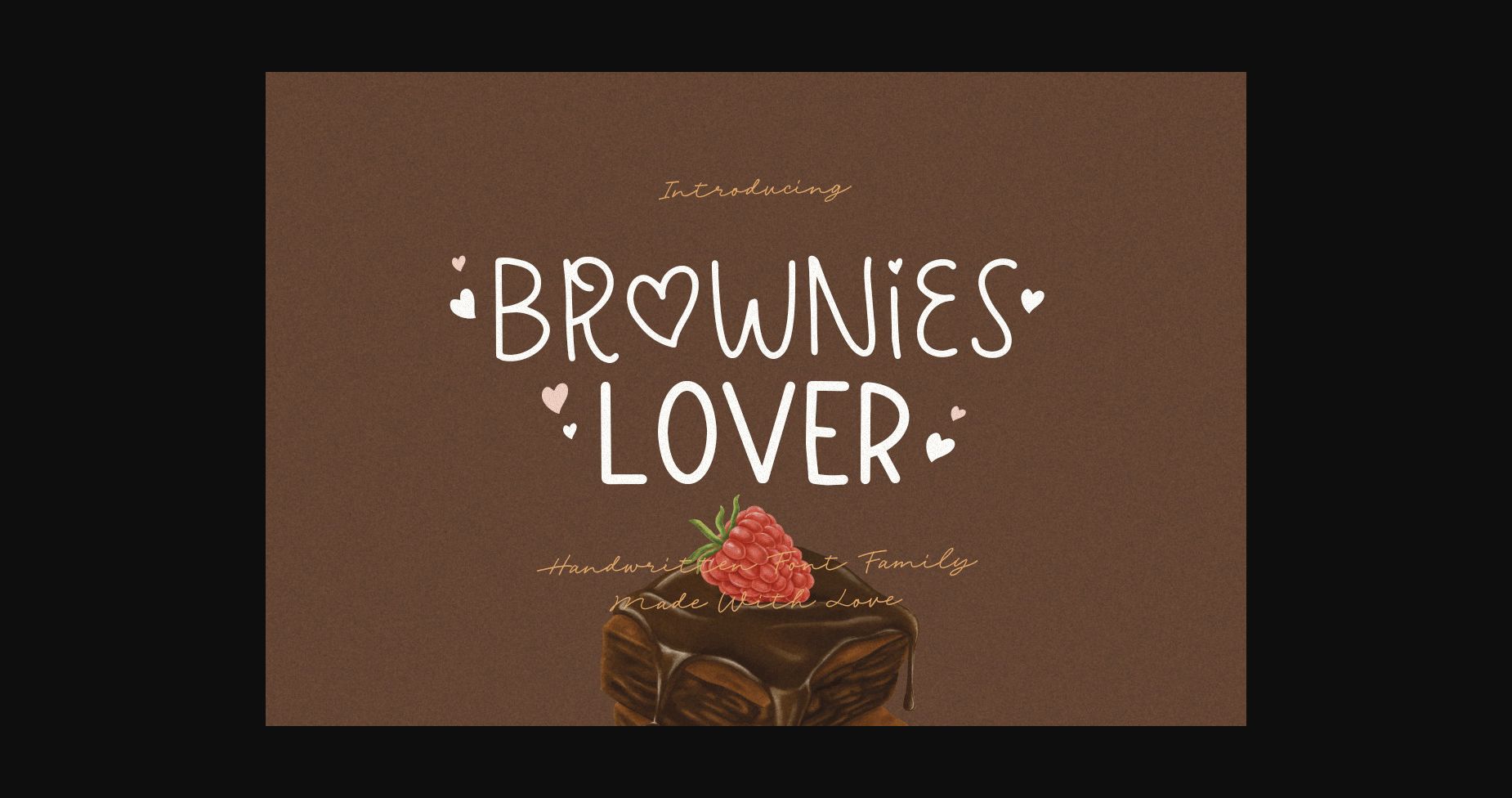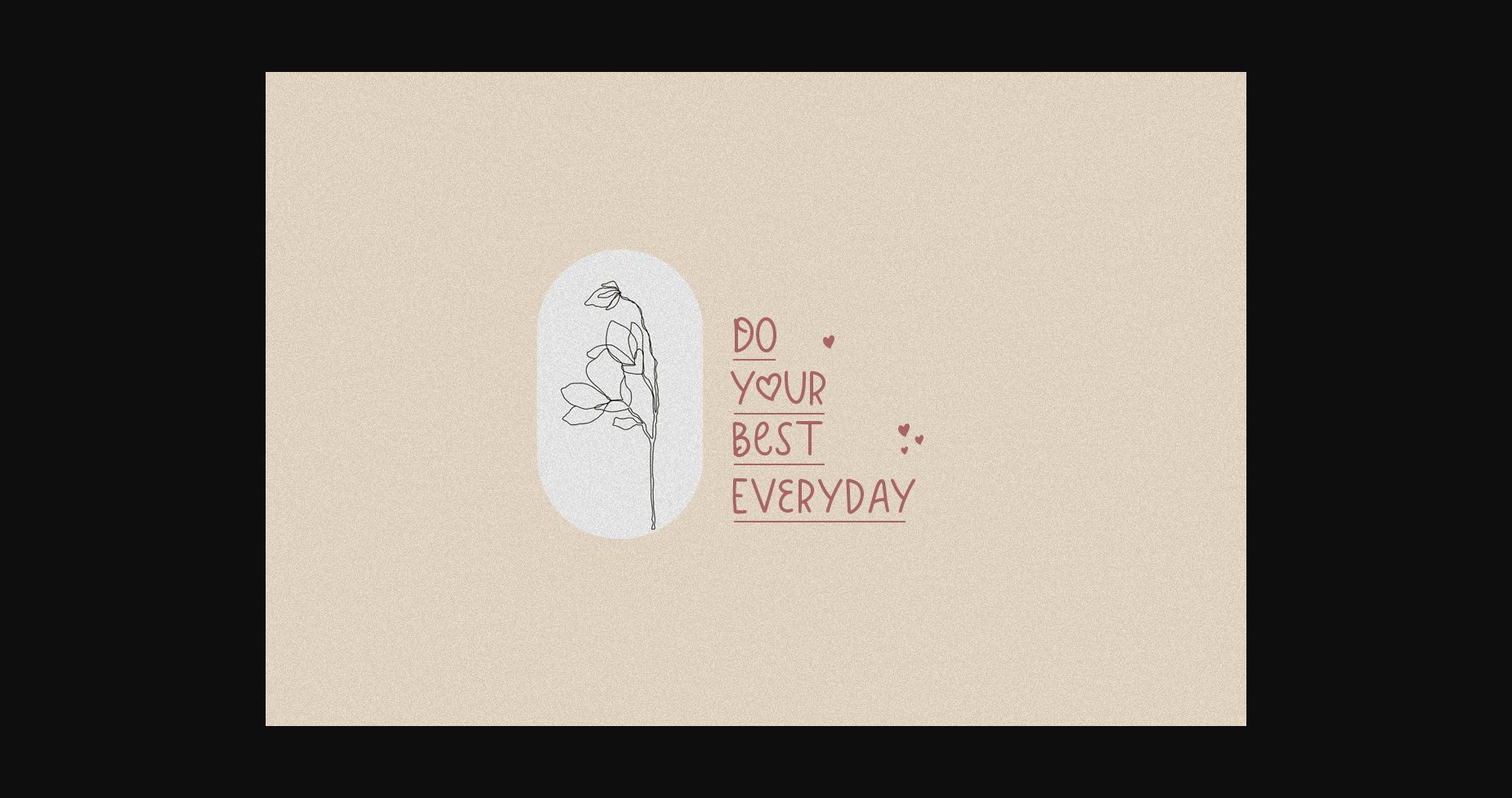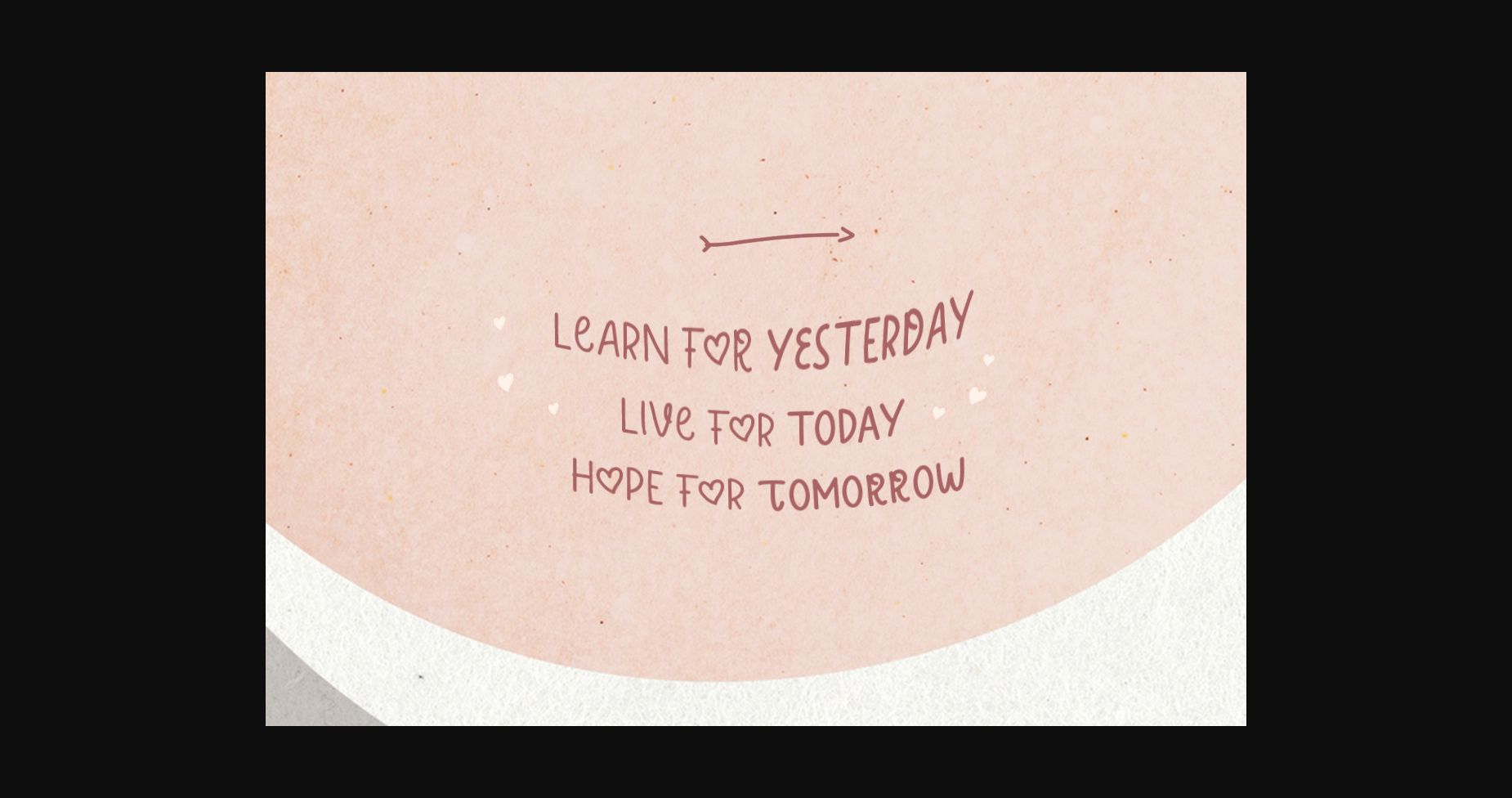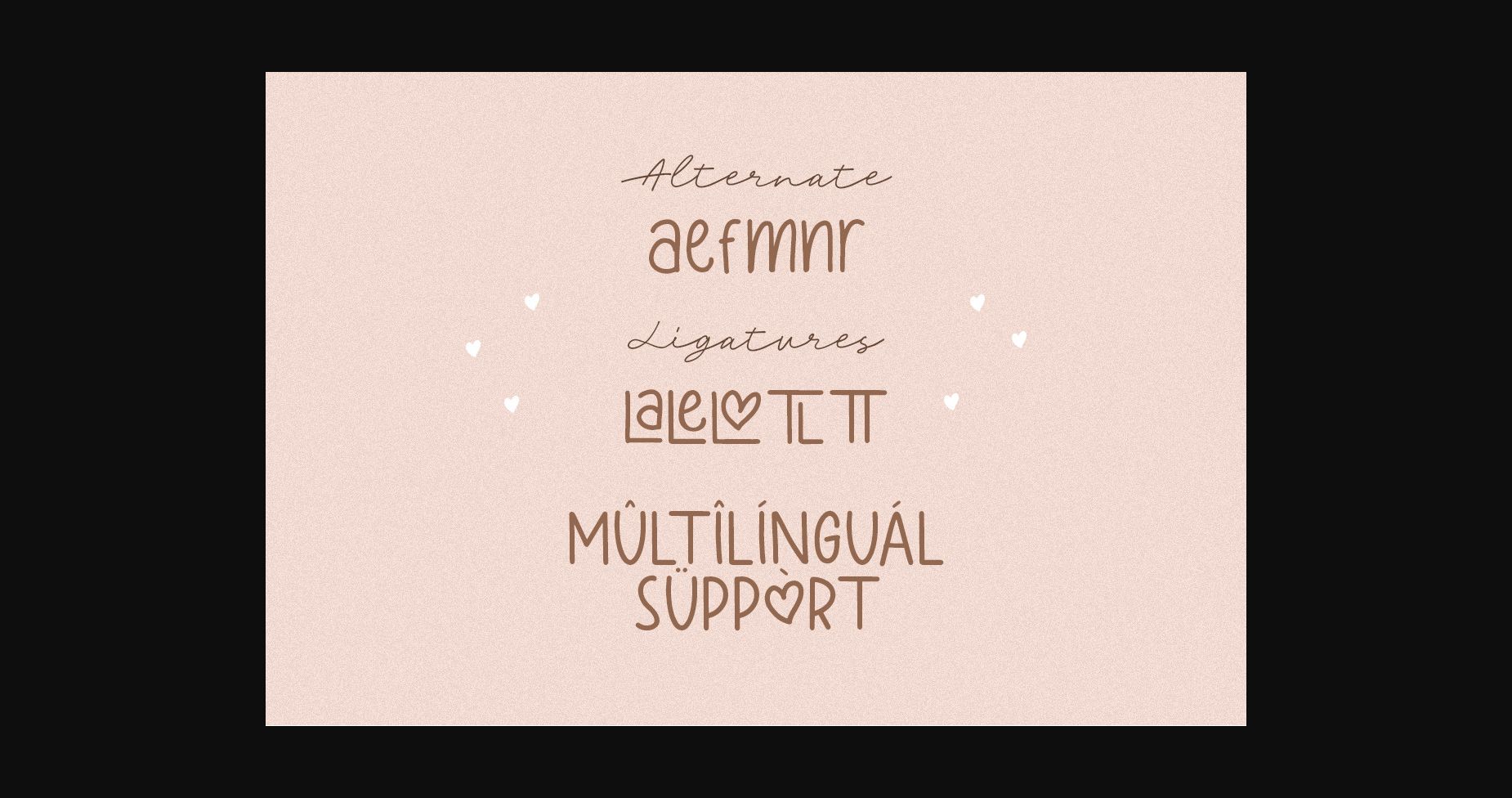
About Brownies Lover Font
Brownies Lover is a cute and friendly sans serif font. It is both fun and stylish, and it can be used on apparel, displays, logos, branding, quotes and more.